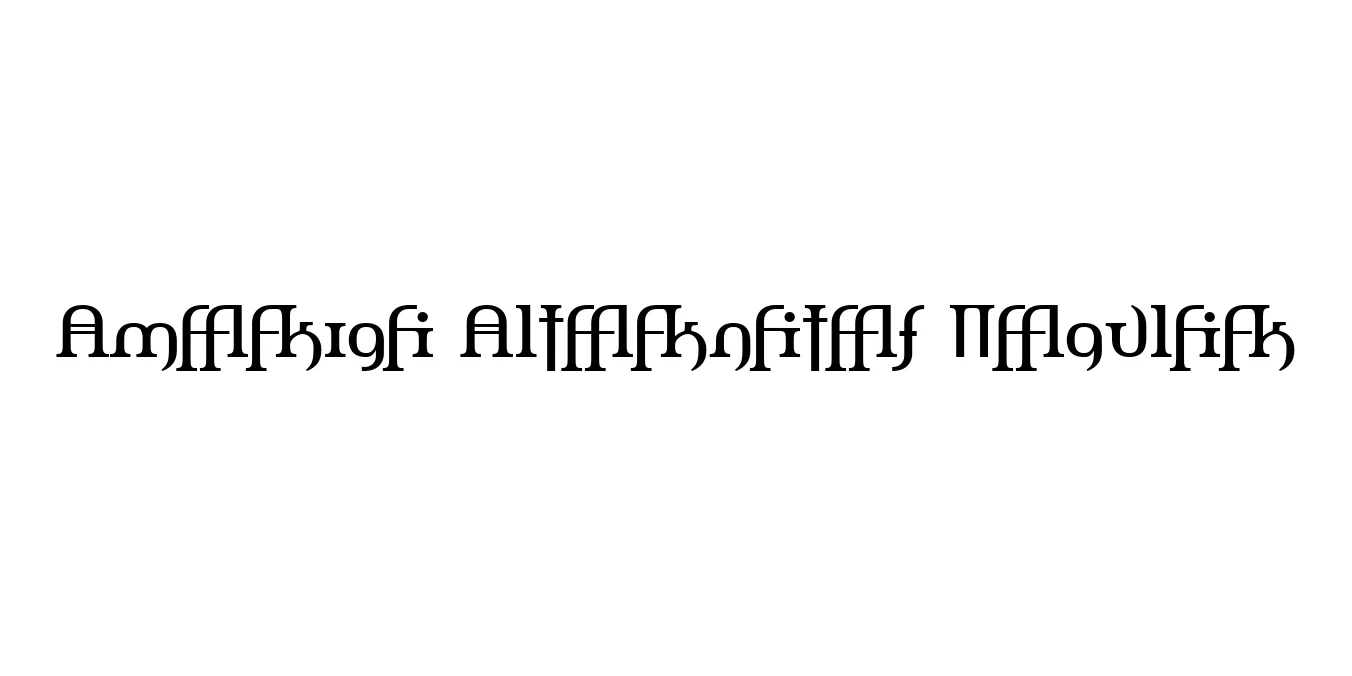
Amerika Alternates Regular
Designed by Steve Jackaman
Amerika Alternates Regular is a distinctive display typeface that draws inspiration from late 19th-century American wood type and advertising typography. Originally developed as part of the Red Rooster Collection, this font captures the robust and spirited essence of early industrial design, making it an excellent choice for projects requiring a touch of historical authenticity and weight.
The Alternates version specifically provides a variety of decorative character variations that allow designers to create unique typographic compositions. Its heavy, slab-like serifs and bold presence ensure high visibility, making it a staple for vintage-style posters, branding, and editorial headlines that need a strong, authoritative voice while maintaining a sense of classic Americana.
Amerika Alternates Regular Best Uses
Perfect for bold, eye-catching titles in magazines and newspapers.
Ideal for creating a strong, retro-inspired brand identity for boutique shops or craft breweries.
Works exceptionally well for event posters and promotional flyers needing a heavy impact.